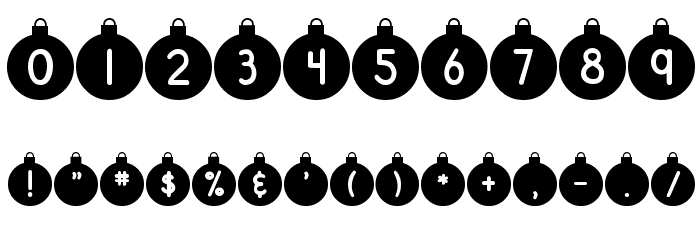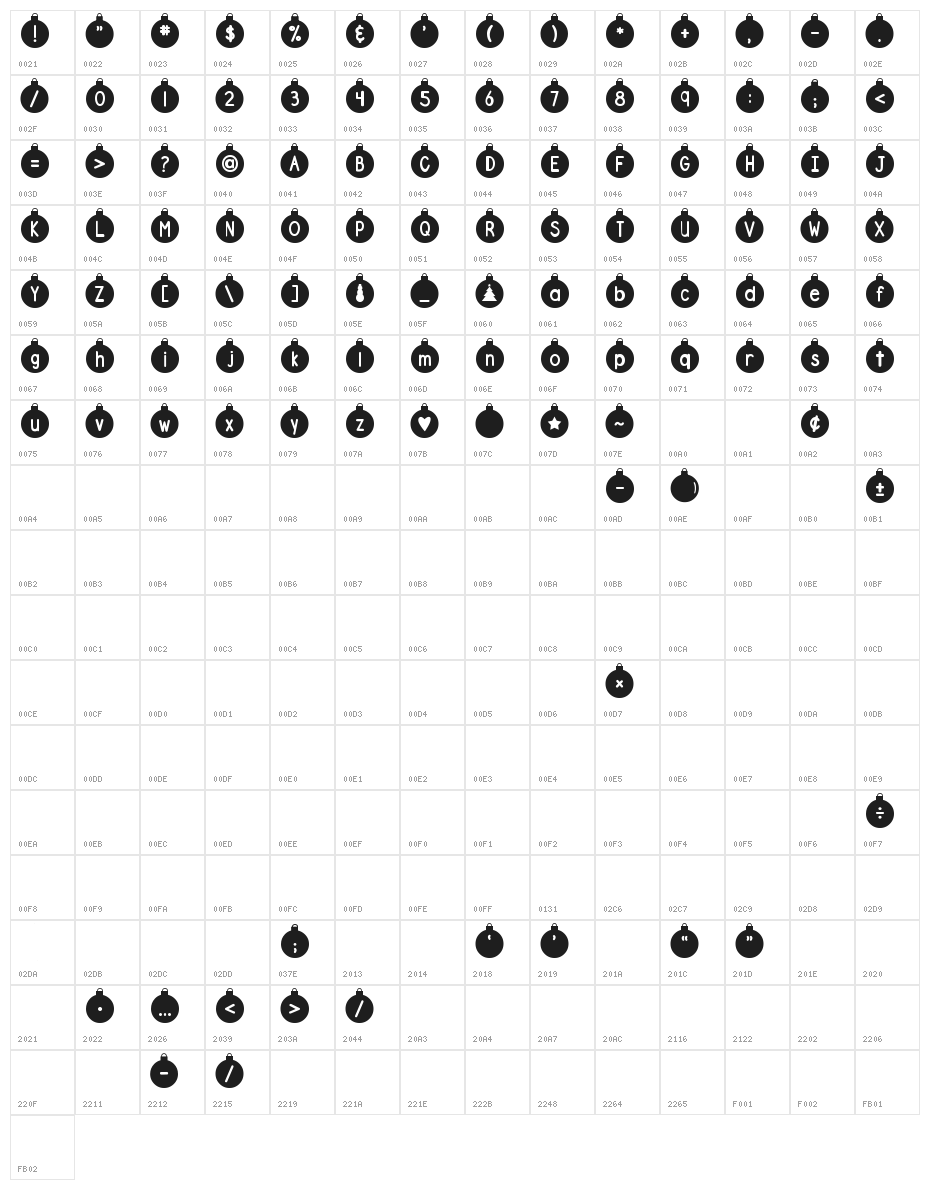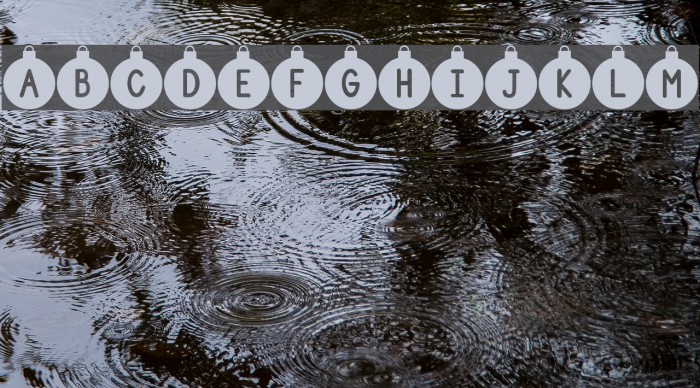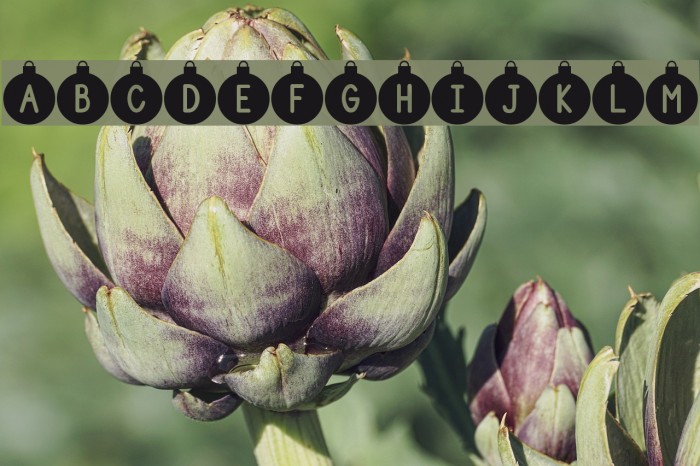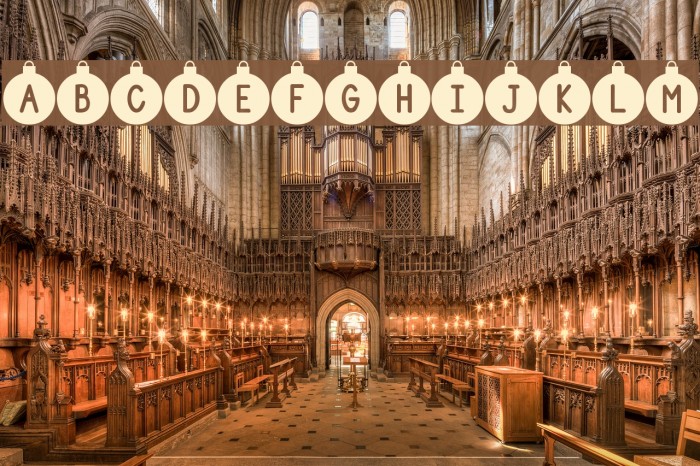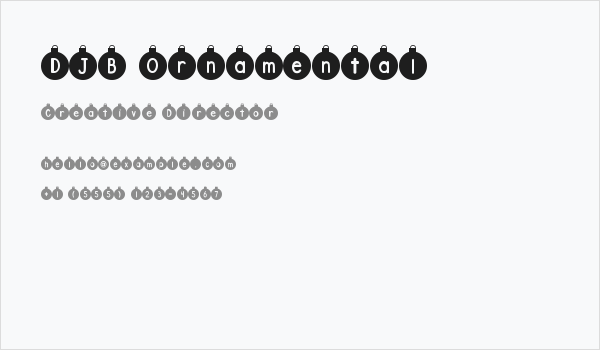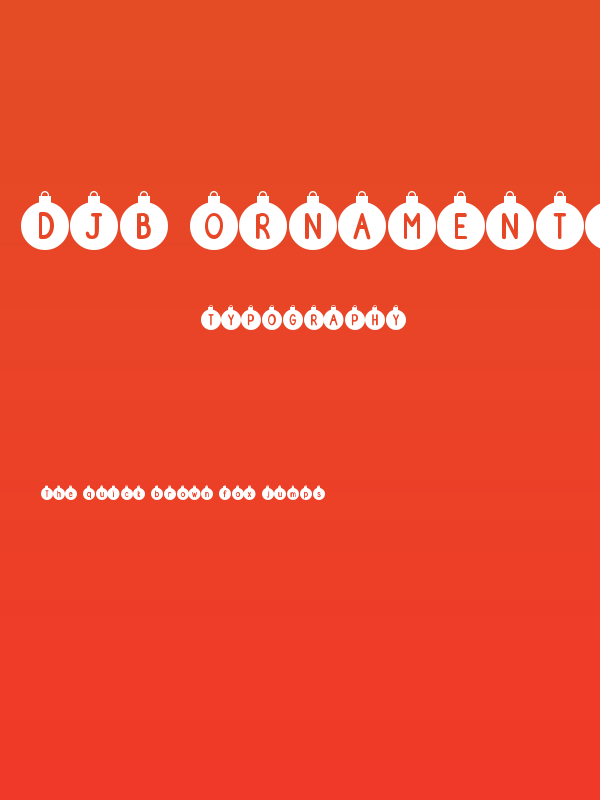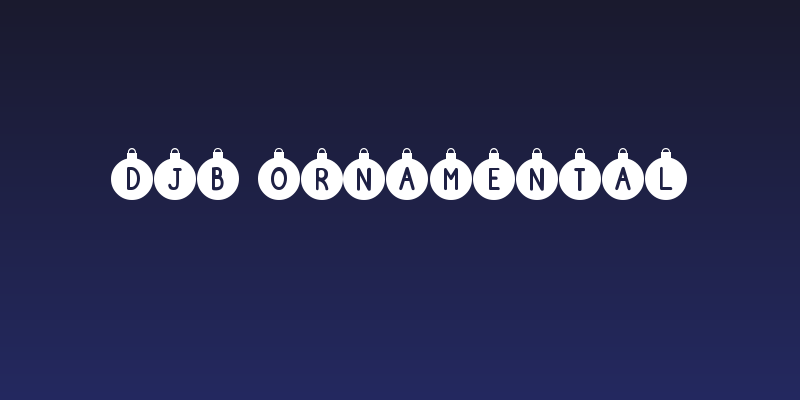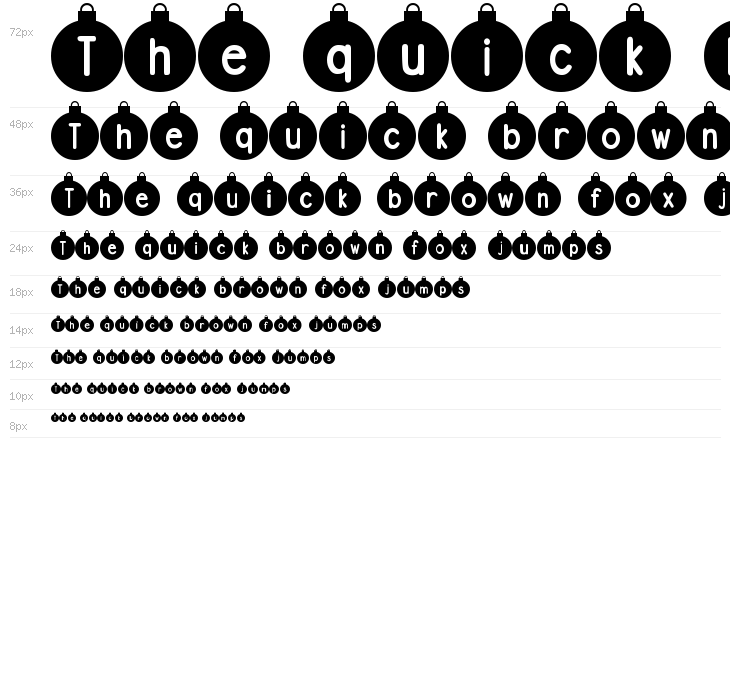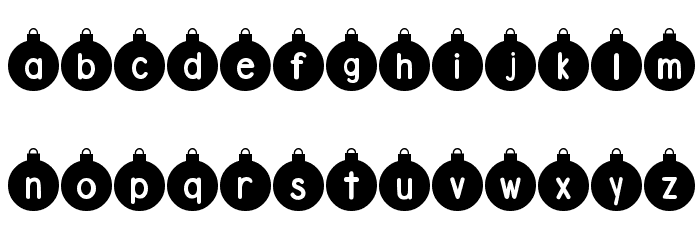
DJB Ornamental Font
DJB Ornamental Description
This playful and festive font features characters enclosed within ornament shapes, reminiscent of holiday decorations. Each letter and symbol is centered within a circular ornament, complete with a small loop at the top, mimicking the look of a hanging bauble. The font has a whimsical and decorative style, making it ideal for seasonal projects. The characters are bold and easily legible, with a consistent stroke width that adds to the uniformity of the design. The overall appearance is both charming and eye-catching, perfect for adding a touch of holiday spirit to any design.
| Use Case | Headlines, Logos, Decorative text |
| Proposed Projects | Ideal for holiday cards, festive banners, seasonal advertisements, and decorative invitations. |